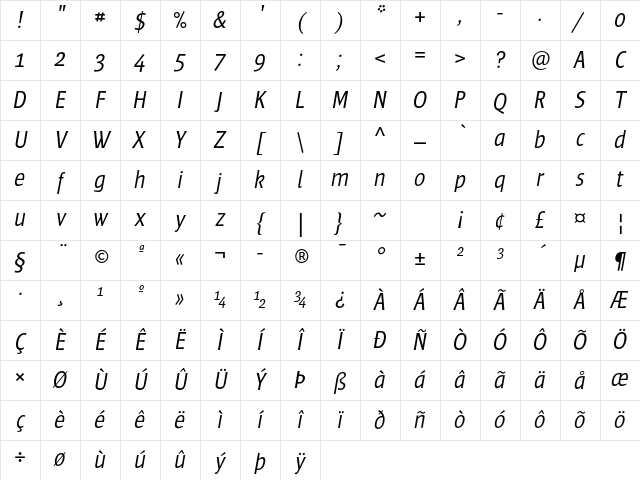
Frisans Std Light Italic
Designer: Bo Berndal
Frisans Std Family
Complete Frisans Std Light Italic glyph index. Displaying only characters natively supported by Frisans Std Light Italic font.
Design Context for Frisans Std
Frisans Std is a composed and adaptable typeface that performs quietly and consistently across a wide range of design contexts. The slanted form adds forward momentum and visual energy. Its slender proportions lend an understated elegance to any composition.